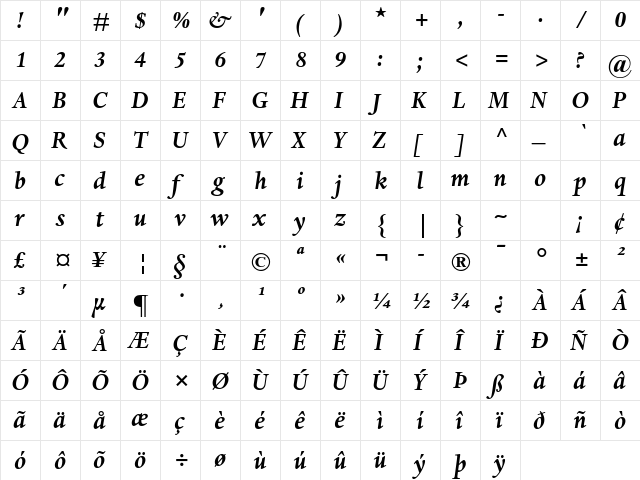
Dante eText Bold Italic
| Foundry | Monotype Imaging Inc. |
| Designer | Monotype Design Team |
Design Context for Dante eText Typeface
Dante eText offers clean, dependable letterforms without strong stylistic allegiance, making it a practical choice for designers who need flexibility. The dynamic lean of this cut emphasises speed and emphasis in any layout. The heavy weight commands attention and anchors typographic hierarchies.
Pro Tip: Use Dante eText for emphasis, pull quotes, and subheadings where its slanted energy can add rhythm to the layout.